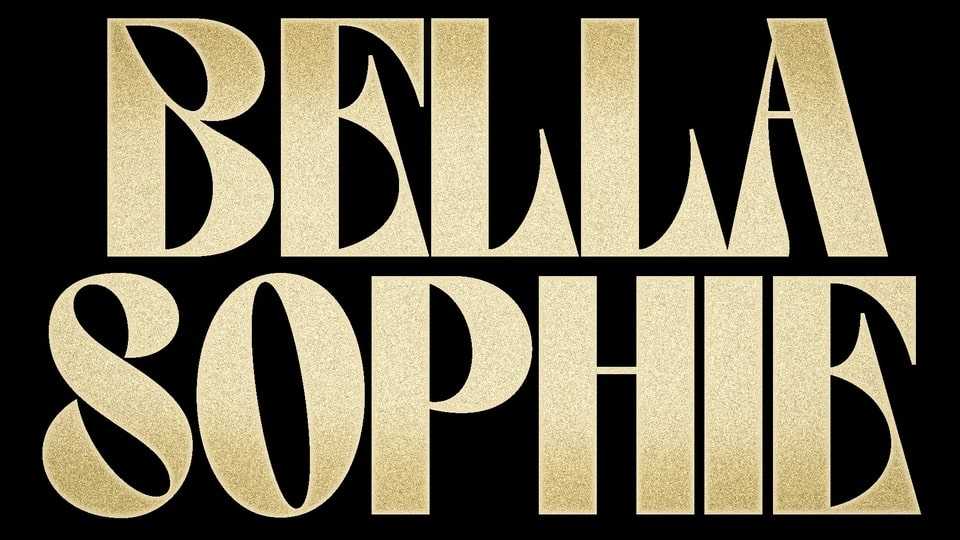
Download Bella Sophie font, a special modern style typeface made with accuracy of beautiful curves. It is perfect for branding design, logos, greeting cards, title packaging. and other designs.
Designer: Dean Nugraha